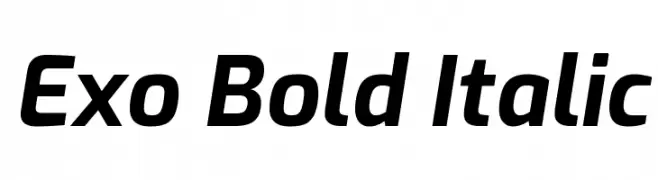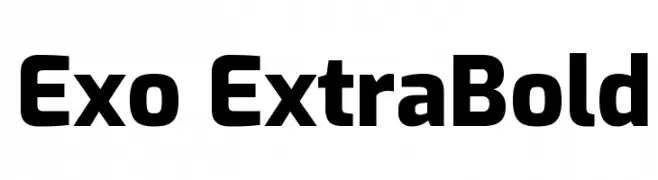
A bold, italicized font with a modern and dynamic style.
A bold, geometric sans-serif font with a modern and futuristic style.
A bold, geometric font with sharp edges and a modern aesthetic.